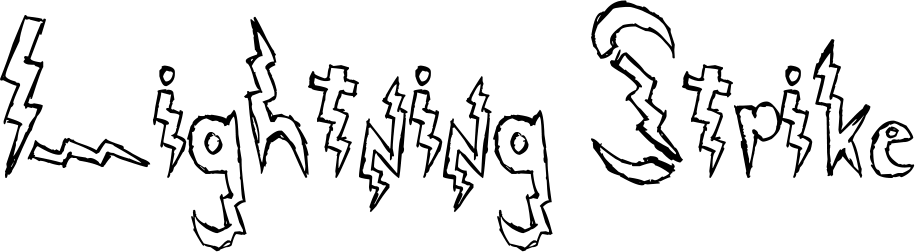
Lightning Strike Font
Designed byRuark Brumbaugh
If you go through our font category you can find this lightning font. Lightning Strike is a creative font and its unique design makes it perfect for a variety of projects like cartoons, the sound effects in comic books, movie titles, and cool T-shirts.
This font comes with an impressive collection of characters containing both the uppercase and lowercase of the alphabet, the numbers, and the punctuation marks.